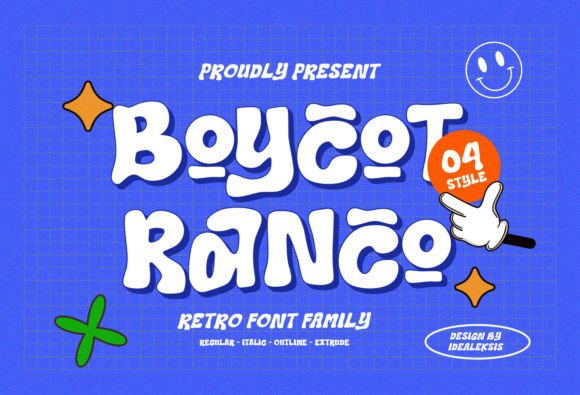
Boycot Ranco Font: A Vibrant Retro Groovy Font for Your Designs
Are you looking for a font that captures the essence of the 70s with a modern twist? Look no further than Boycot Ranco, a vibrant retro groovy font that’s perfect for designs that want to evoke a carefree, vintage vibe. In this article, we’ll take a closer look at Boycot Ranco and explore its features, benefits, and uses.
What is Boycot Ranco Font?
Boycot Ranco is a unique and playful font that combines the best of retro aesthetics with contemporary design. Its bold, funky letters and playful curves bring a sense of nostalgia and joy, making it perfect for designs that want to stand out from the crowd. Whether you’re creating posters, logos, or social media graphics, Boycot Ranco adds a fun and dynamic flair to any project.
Features of Boycot Ranco Font
Boycot Ranco font has several features that make it a must-have for designers. Some of its key features include:
- Retro Aesthetic: Boycot Ranco has a distinct retro vibe that’s reminiscent of the 70s. Its bold, funky letters and playful curves evoke a sense of nostalgia and joy.
- Modern Twist: While Boycot Ranco has a retro aesthetic, it also has a modern twist that makes it perfect for contemporary designs.
- Playful Curves: The font has playful curves that add a sense of fun and dynamism to any design.
- Bold and Funky Letters: Boycot Ranco’s bold and funky letters make it perfect for designs that want to stand out from the crowd.
Benefits of Using Boycot Ranco Font
There are several benefits to using Boycot Ranco font in your designs. Some of the benefits include:
- Unique and Eye-Catching: Boycot Ranco is a unique and eye-catching font that’s sure to grab attention.
- Perfect for Retro-Inspired Designs: The font is perfect for designs that want to evoke a retro vibe.
- Versatile: Boycot Ranco can be used for a wide range of designs, from posters and logos to social media graphics.
- Easy to Read: Despite its bold and funky design, Boycot Ranco is easy to read, making it perfect for designs that require a clear and concise message.
Uses of Boycot Ranco Font
Boycot Ranco font can be used for a wide range of designs, including:
- Posters: Boycot Ranco is perfect for creating eye-catching posters that want to evoke a retro vibe.
- Logos: The font can be used to create unique and memorable logos that stand out from the crowd.
- Social Media Graphics: Boycot Ranco can be used to create fun and engaging social media graphics that grab attention.
- Advertising: The font can be used for advertising campaigns that want to evoke a retro vibe.
Tips for Using Boycot Ranco Font
Here are some tips for using Boycot Ranco font:
- Use it Sparingly: Use Boycot Ranco font sparingly to avoid overwhelming your design.
- Pair it with Other Fonts: Pair Boycot Ranco with other fonts to create a unique and interesting design.
- Experiment with Colors: Experiment with different colors to find the perfect combination for your design.
Boycot Ranco font is a vibrant retro groovy font that’s perfect for designs that want to evoke a carefree, vintage vibe. Its playful curves and bold, funky letters bring a sense of nostalgia and joy, making it perfect for a wide range of designs. With its unique blend of retro aesthetics and contemporary design, Boycot Ranco is a must-have for anyone looking to make a bold statement.
- What is Boycot Ranco font? Boycot Ranco font is a vibrant retro groovy font that captures the essence of the 70s with a modern twist.
- What are the features of Boycot Ranco font? Boycot Ranco font has several features, including a retro aesthetic, modern twist, playful curves, and bold and funky letters.
- What are the benefits of using Boycot Ranco font? The benefits of using Boycot Ranco font include its unique and eye-catching design, versatility, and ease of use.